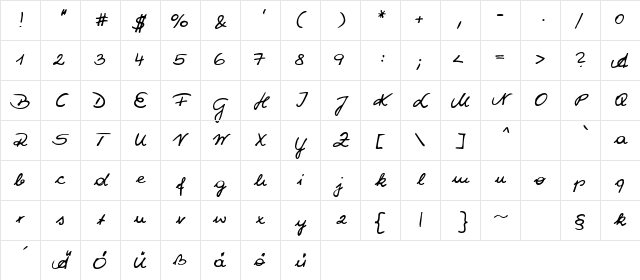
WIPSugarBaby Regular
Design Context for WIPSugarBaby
WIPSugarBaby is a composed and adaptable typeface that performs quietly and consistently across a wide range of design contexts.